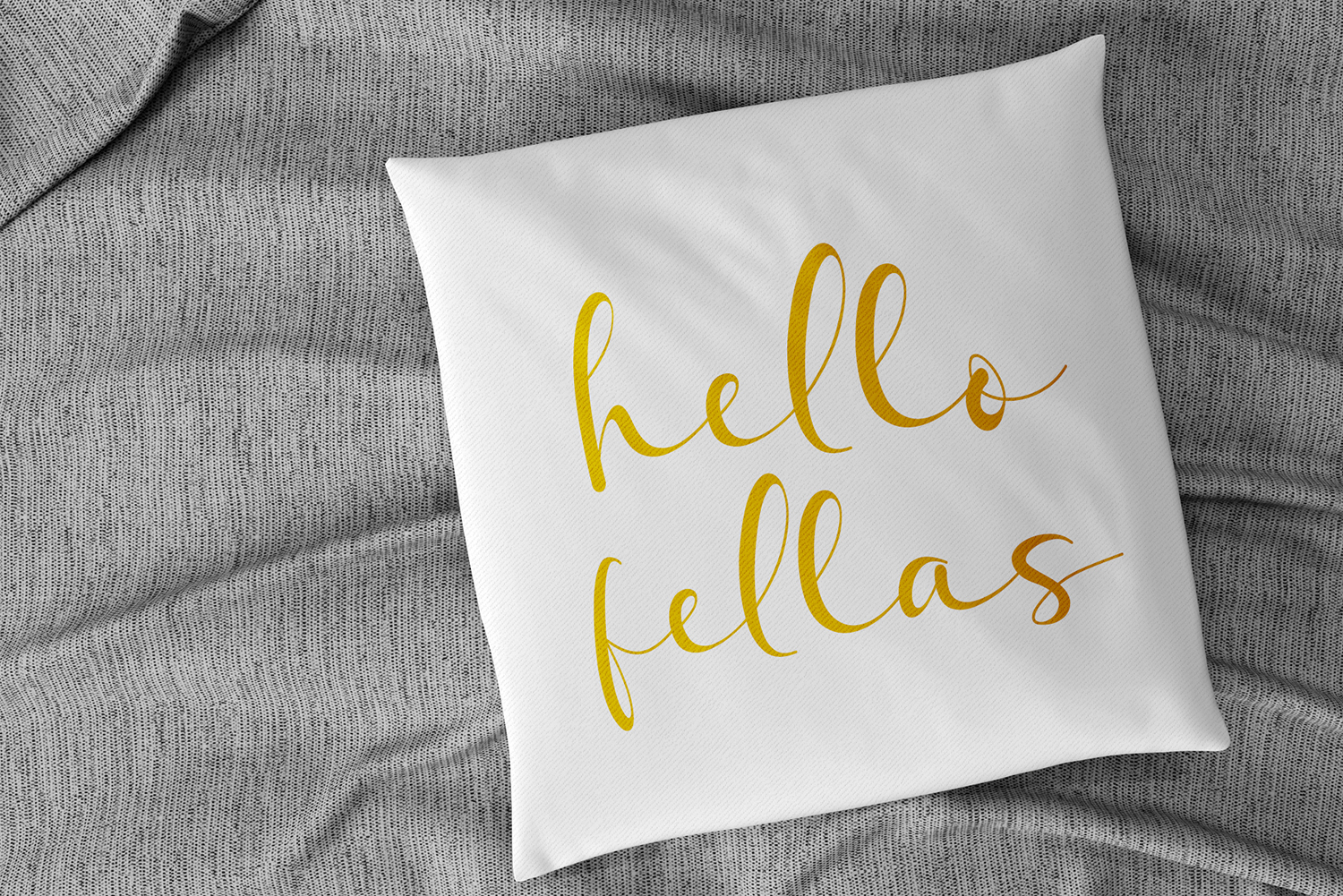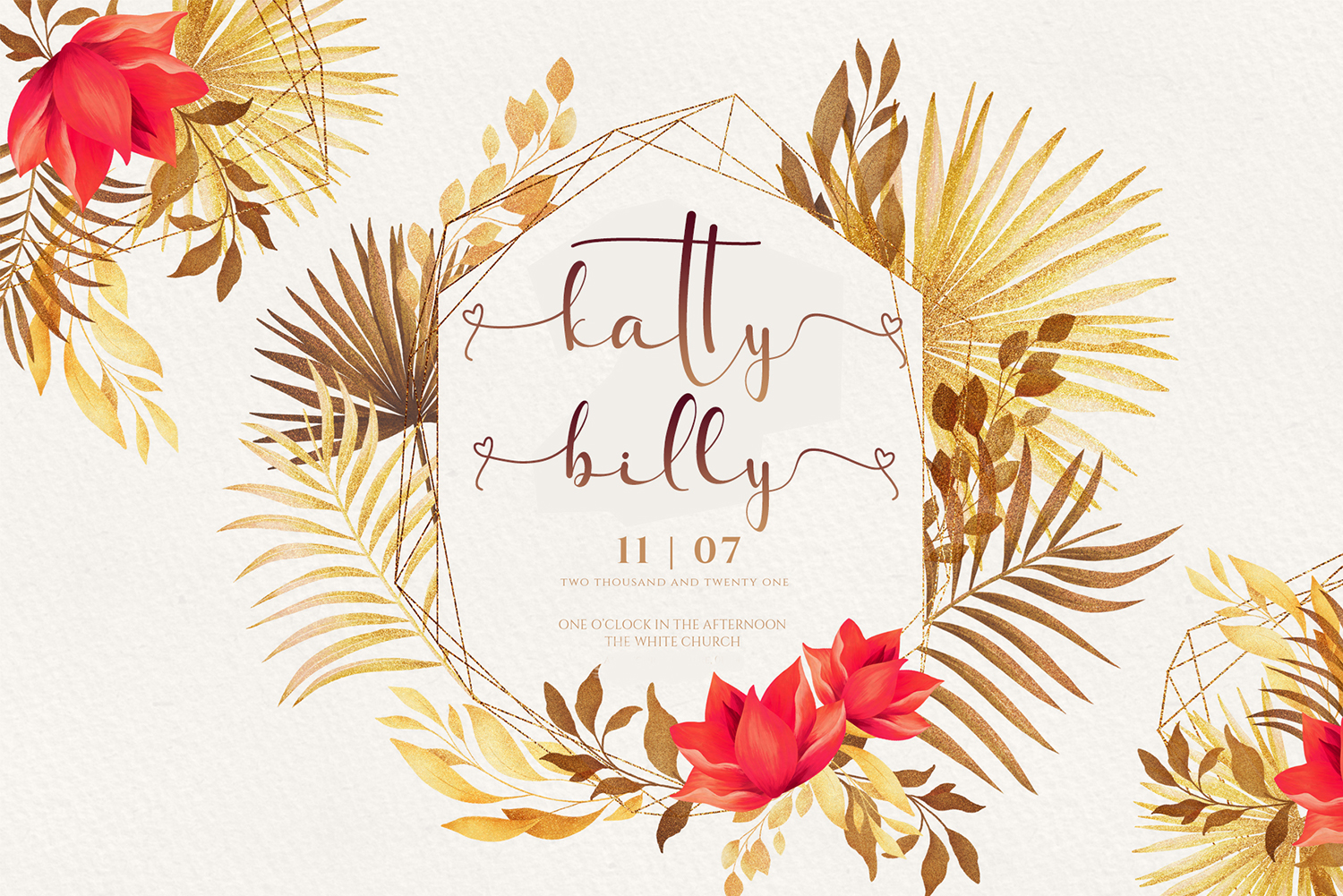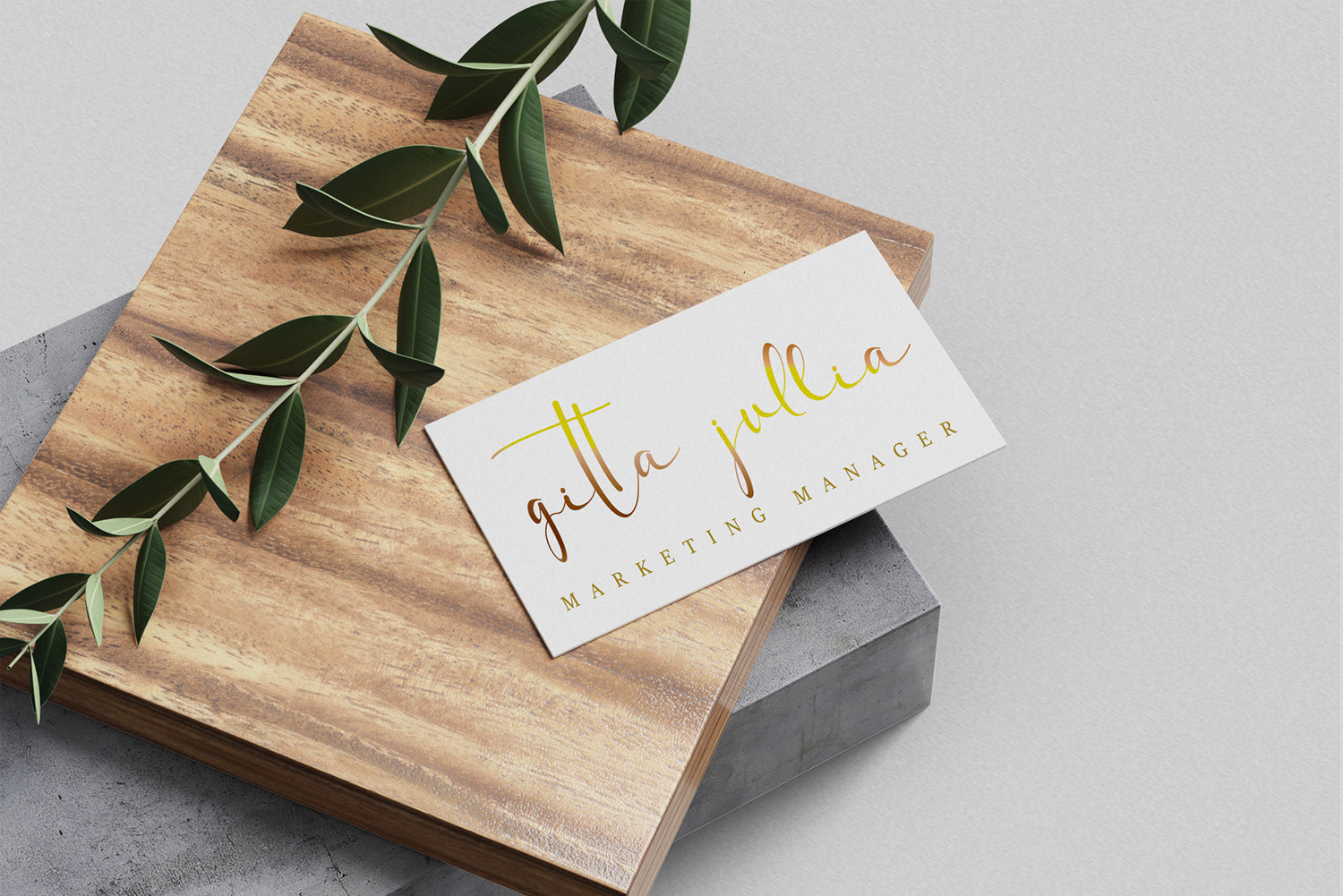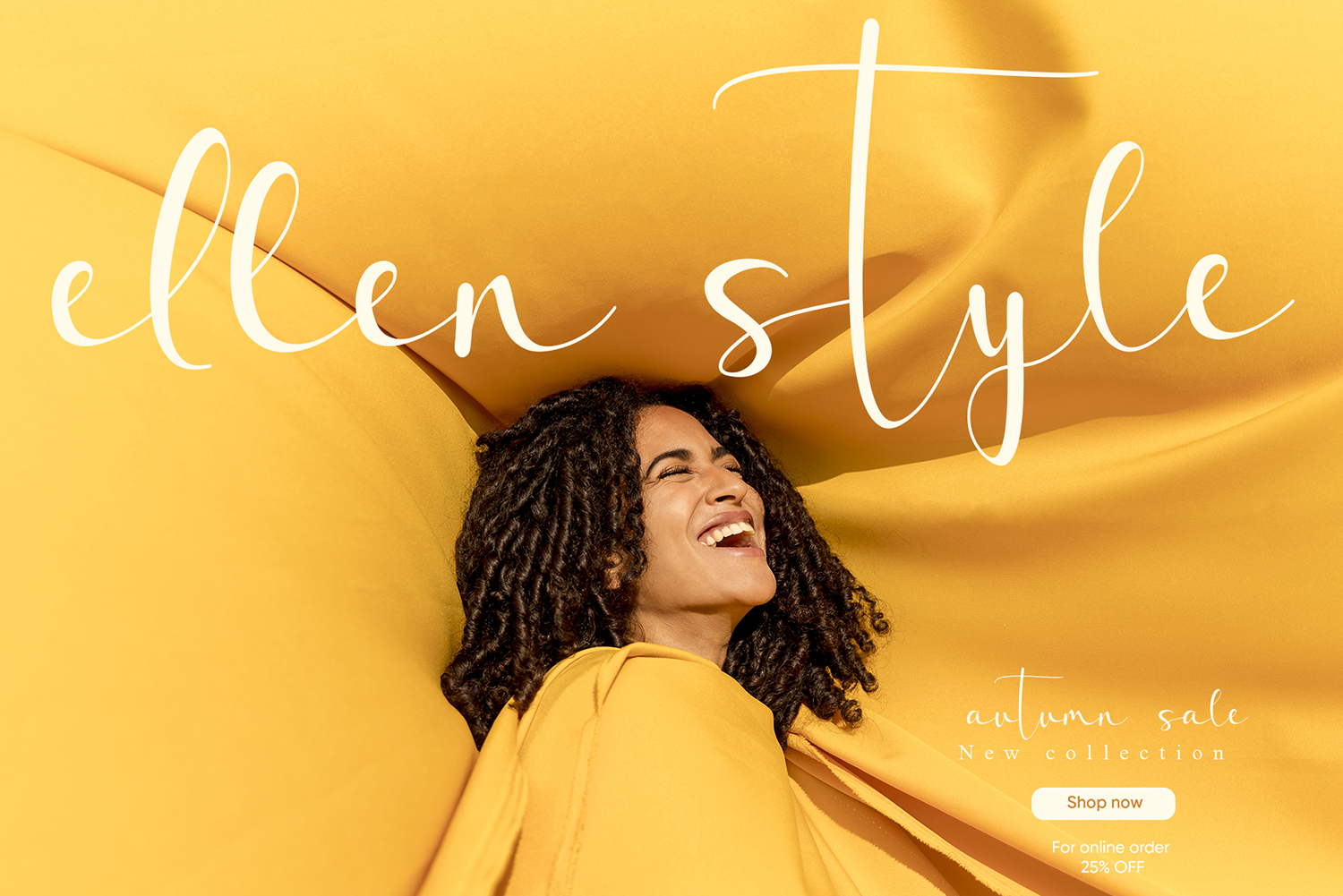
Kallyca Free Font
Kallyca Free Font is a delicate, elegant, and flowing handwritten font. It has beautiful and well-balanced characters and as a result, it matches a wide pool of designs. Kallyca features a varying baseline, smooth lines, gorgeous glyphs, and stunning alternates. Add it to your most creative ideas and notice how it makes them come alive. This free typeface was designed by talented Tiny Hand Letter. If you like it don’t forget to check out the full version.